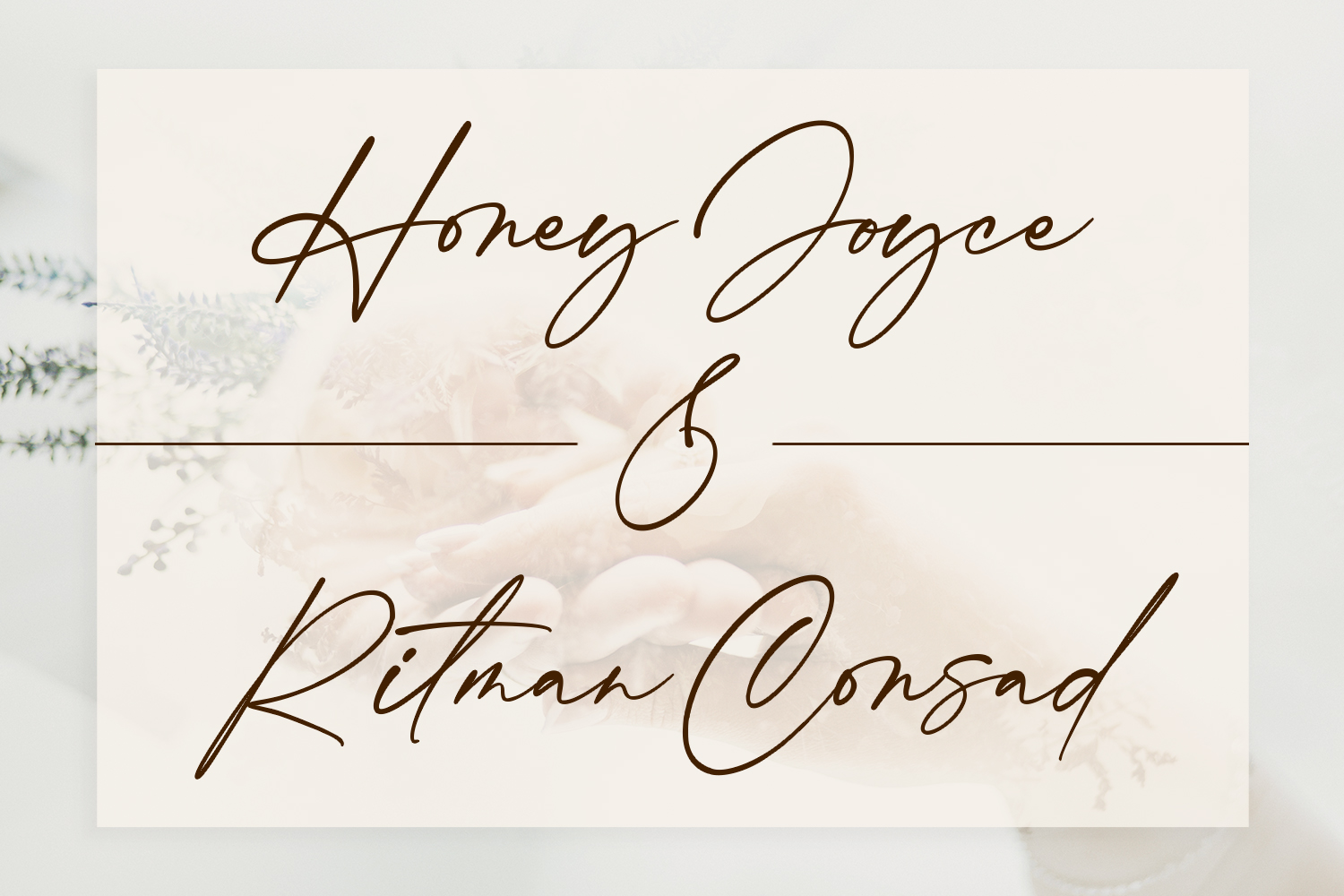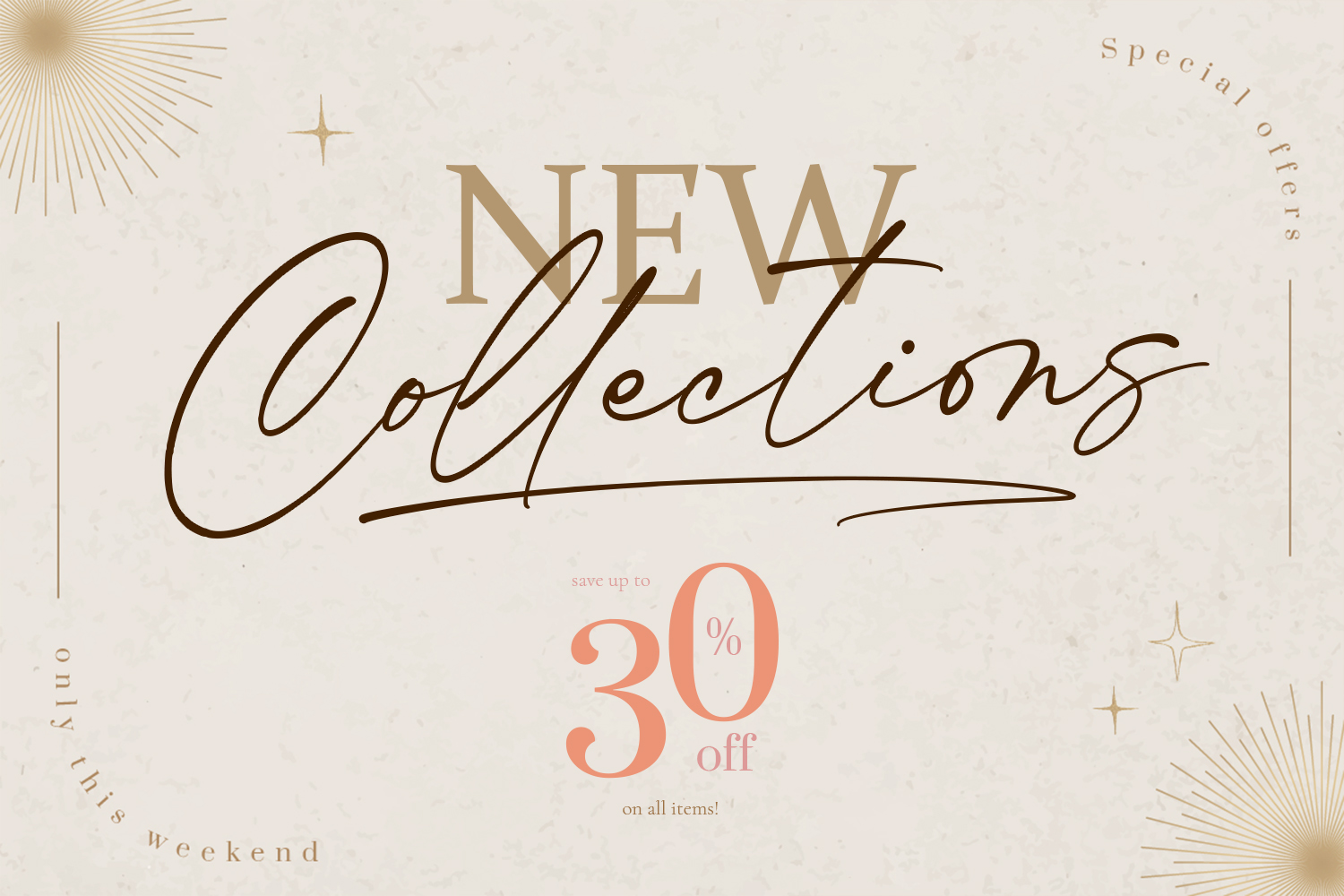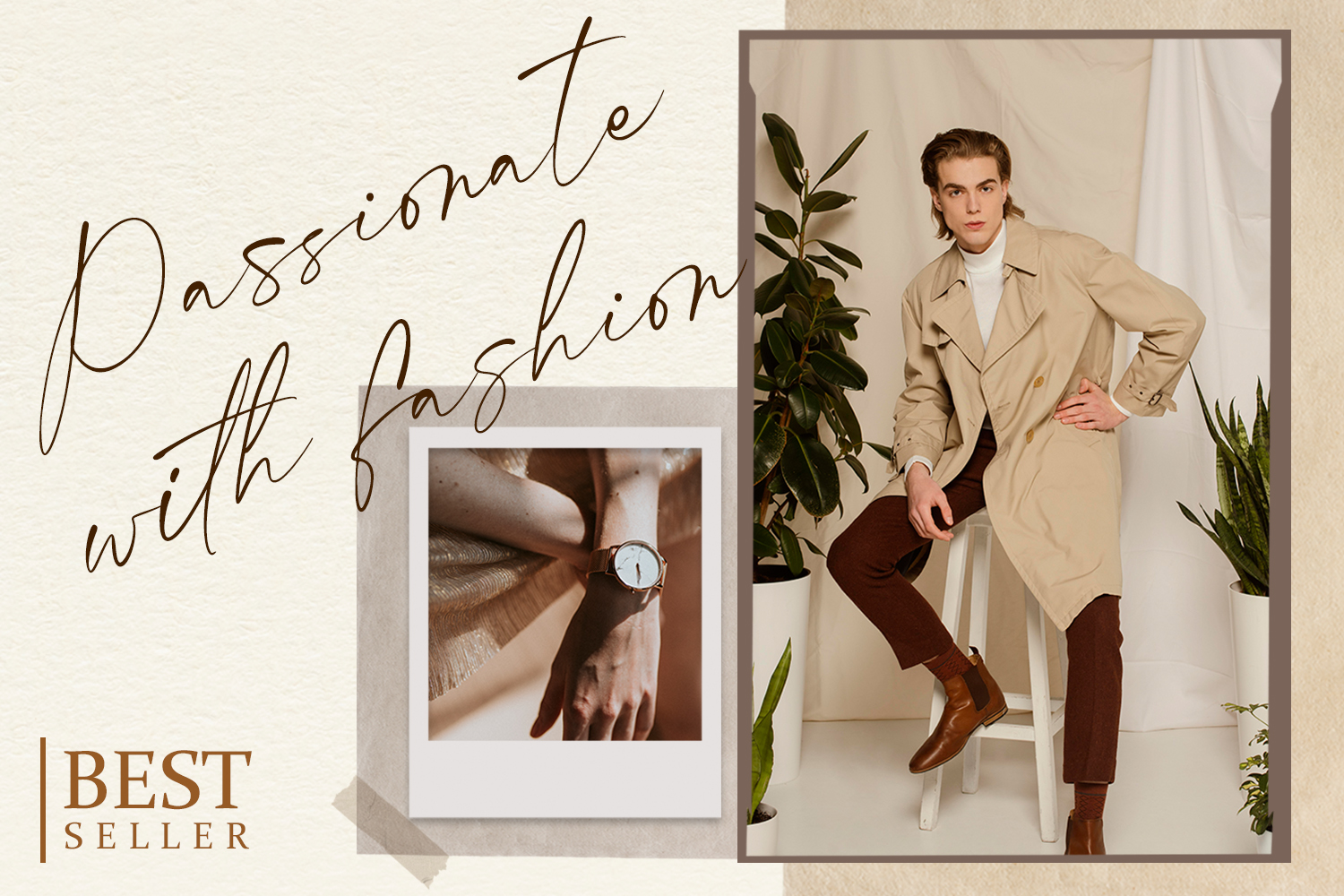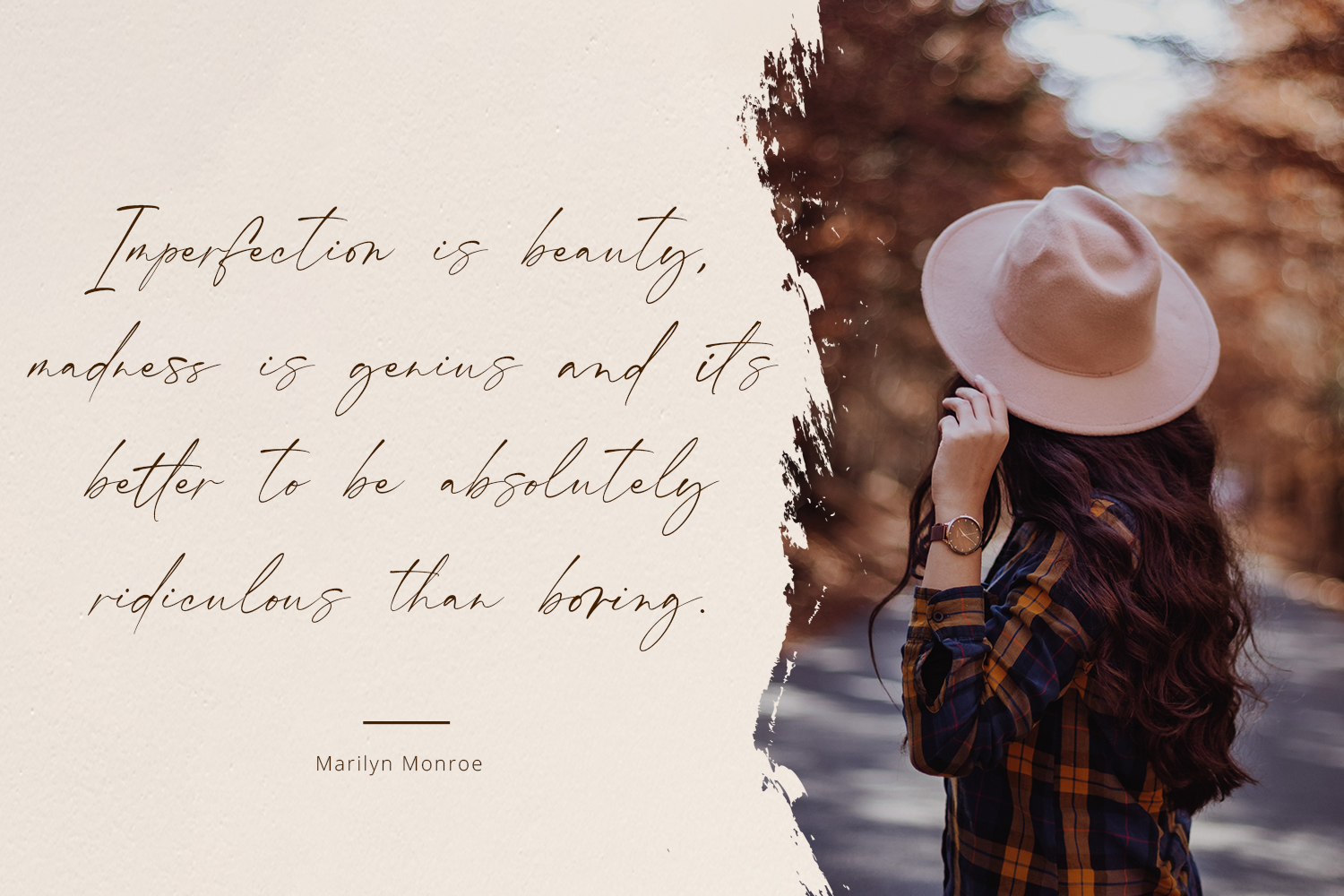
Committing Font
Committing Handwritten Font
It’s a stunning handwritten font with authentic and casual feels. It will be perfectly used for Branding, Logo Design, Lettering, Logotype, Clothing, Poster, magazine, packaging, posters, shopping bags, t-shirts, book covers, photography, special events and other design project.